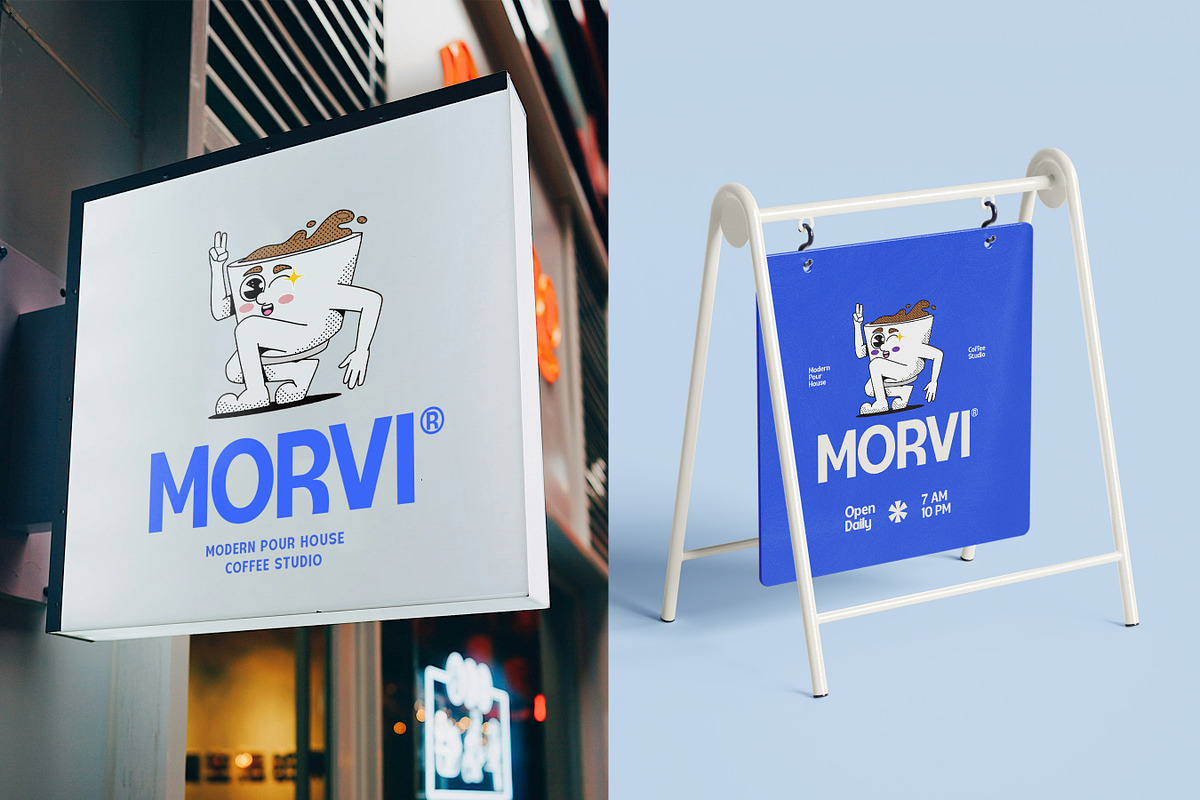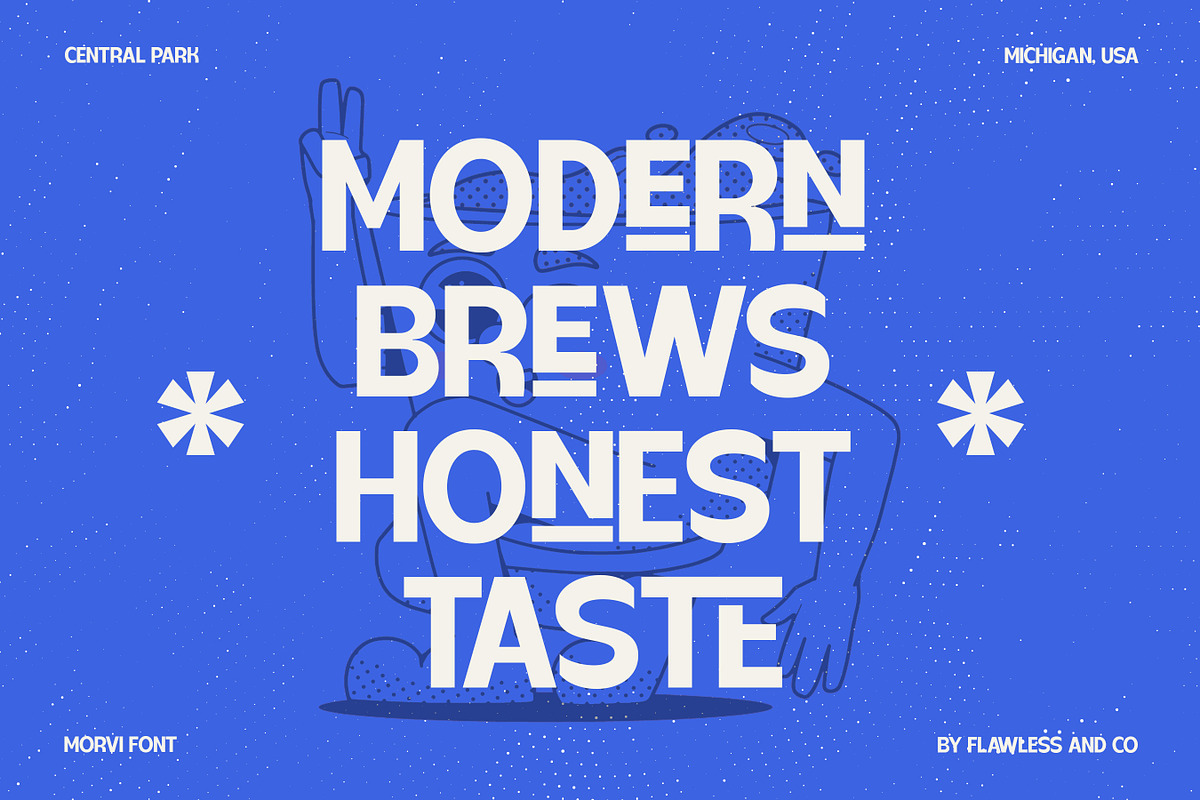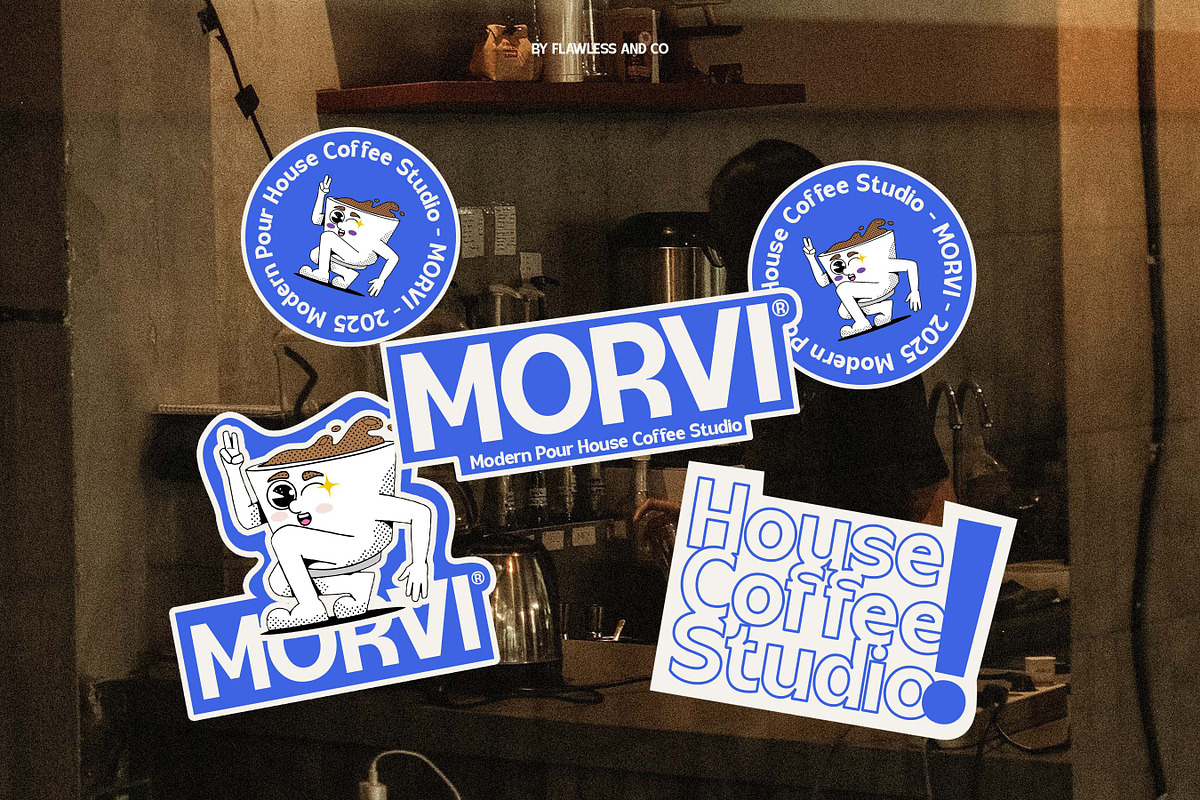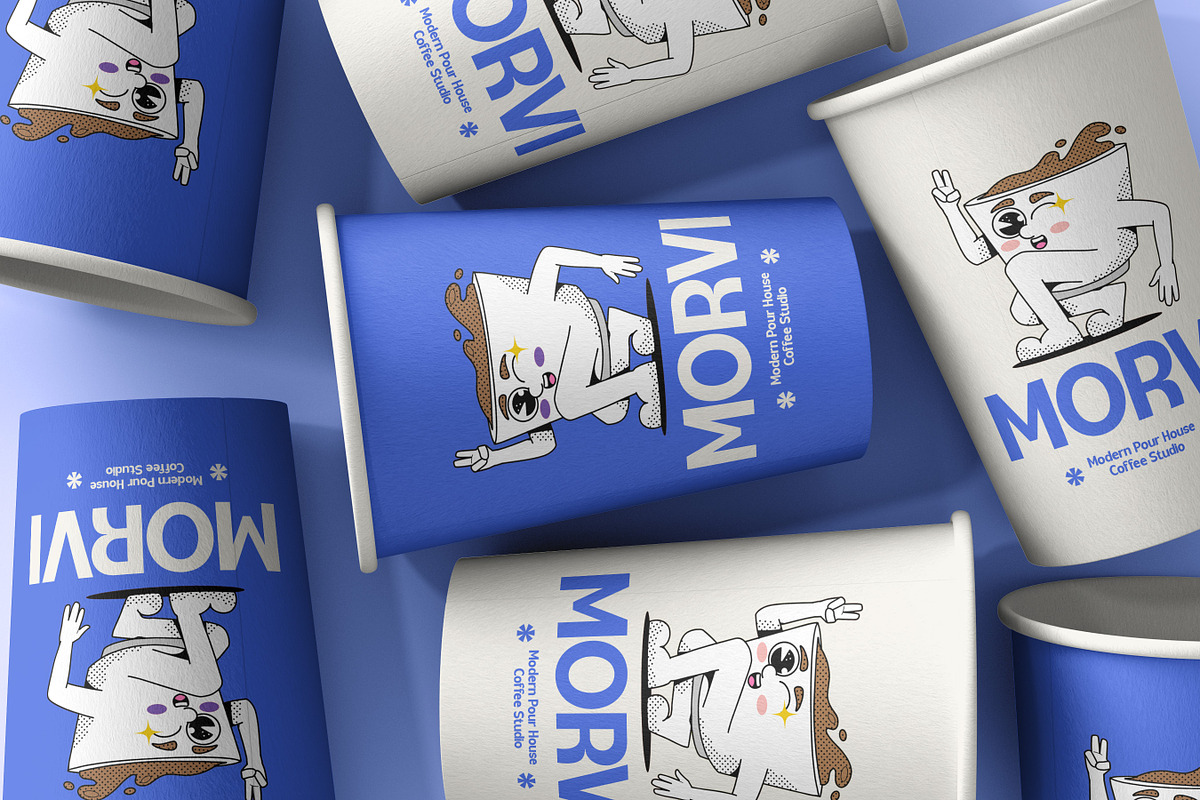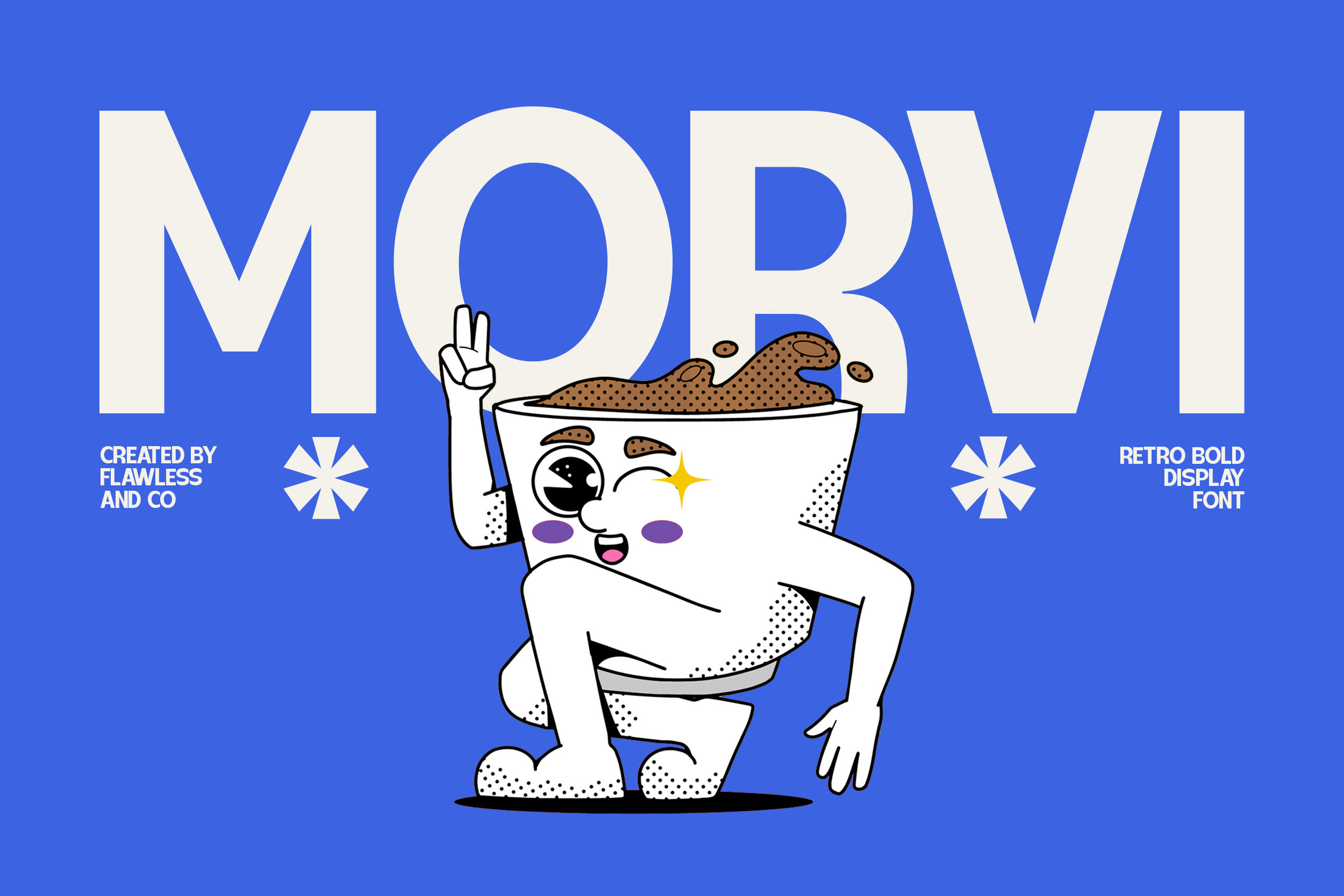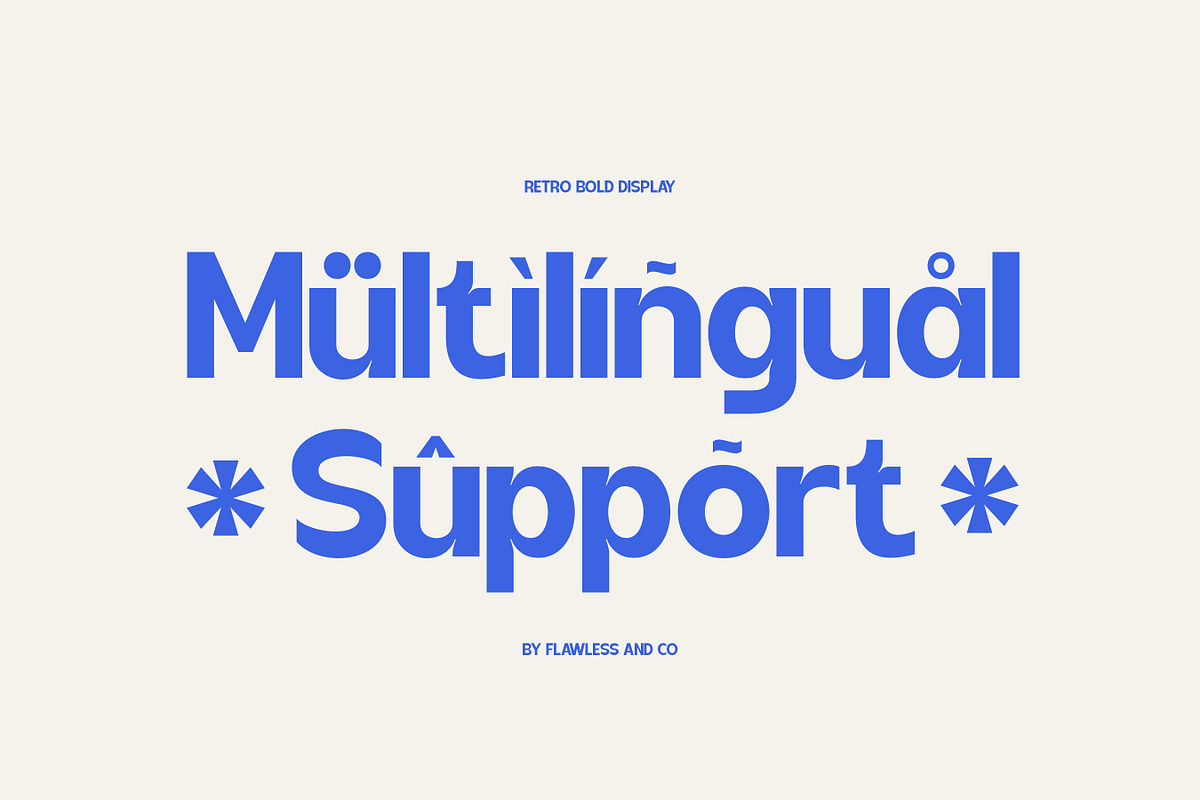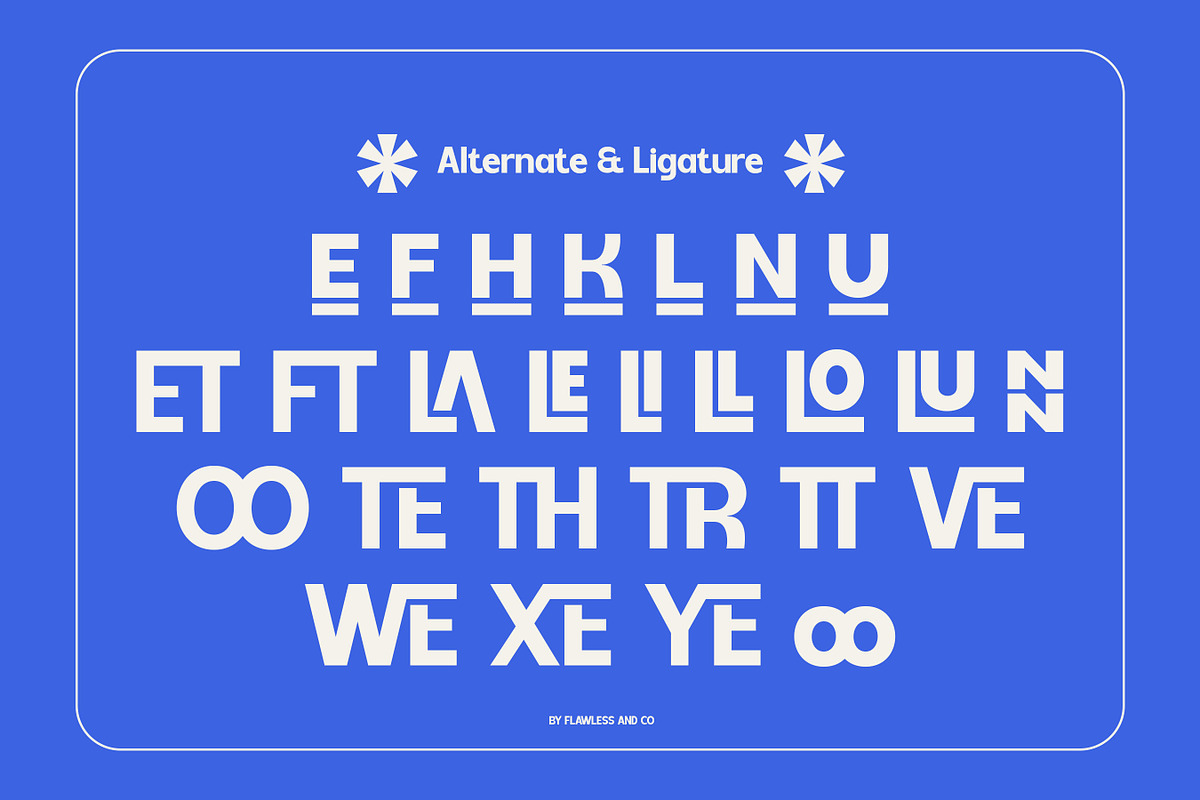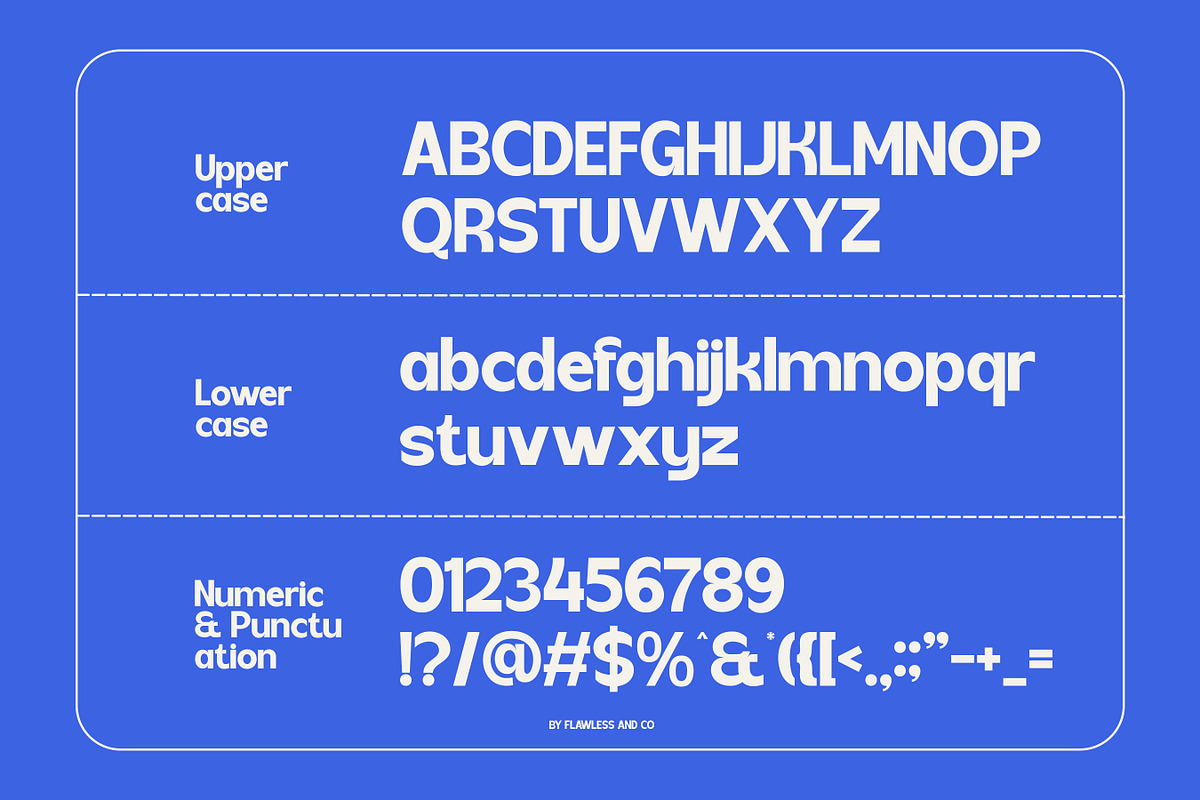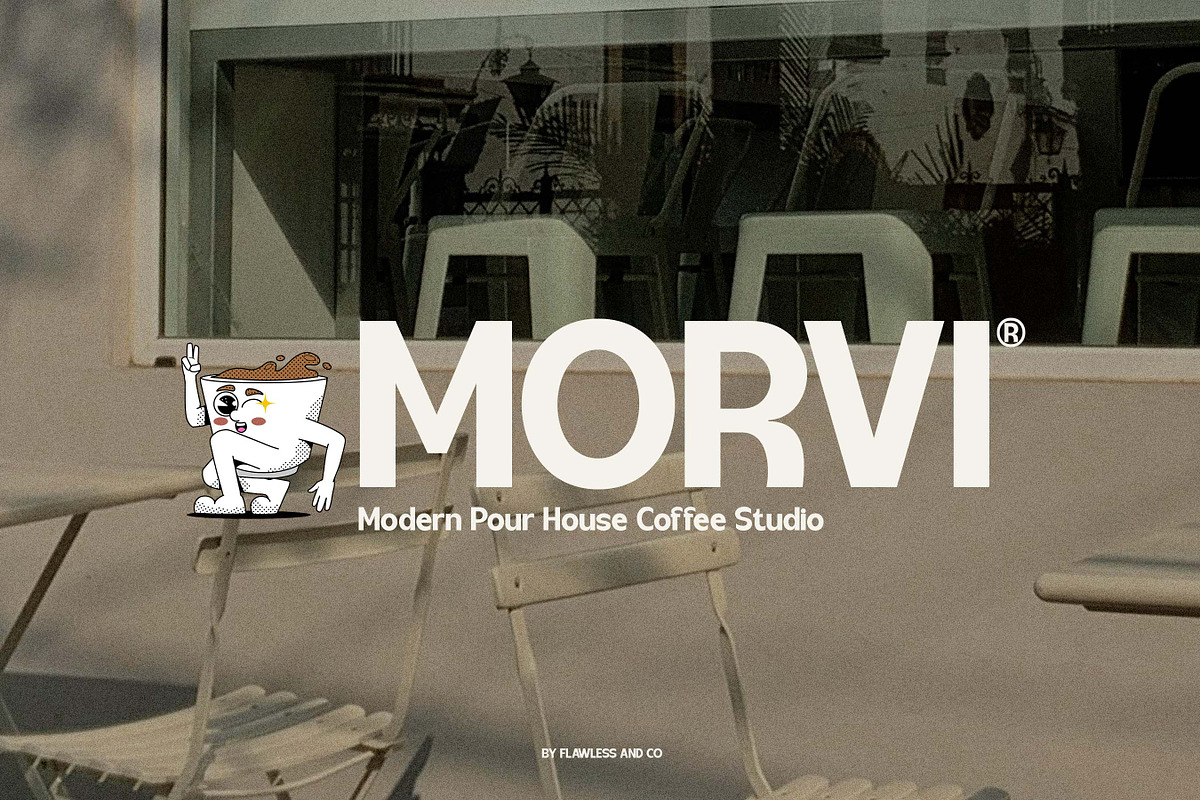
Morvi - Retro Bold Display Font
Morvi is a retro bold display font that brings playful nostalgia and confident energy into your design. With its thick, rounded shapes and vintage-inspired look, Morvi captures the fun, quirky charm of retro typography — perfect for projects that want to stand out with personality and boldness. Each letter is crafted with smooth curves and balanced proportions, making it ideal for eye-catching titles, branding, and packaging. Whether you’re designing a logo, poster, or social media headline, Morvi delivers a cheerful retro vibe that instantly attracts attention.
Who Should Use Morvi?
Morvi is perfect for creators who love bold and expressive typography with a nostalgic touch. It’s designed for:
- Brand designers who want a retro yet modern edge in their logo concepts.
- Creative agencies seeking standout display fonts for visual identity projects.
- Packaging designers aiming to create fun and memorable product designs.
- Poster and merchandise creators who need a bold, eye-catching headline font.
- Social media designers looking to add personality and playfulness to visuals.
A Must-Have Font for "Brand and Logo" Creators and Designers
Morvi is a must-have typeface for designers who want their branding and logo projects to radiate boldness and retro charm. Its confident curves and nostalgic style make it a perfect choice for creative professionals looking to build a memorable visual identity. Whether you’re crafting playful product packaging, a standout wordmark, or a vibrant poster headline, Morvi brings a lively, vintage-inspired energy that helps your brand feel fun, unique, and instantly recognizable.
Why Choose Morvi for "Brand and Logo" Projects?
Choosing Morvi means choosing impact, style, and personality. This retro bold display font blends nostalgic charm with modern versatility — making every logo or headline pop with confidence. Its thick, playful letterforms are crafted to grab attention while maintaining excellent readability across digital and print designs. With its retro-inspired curves and bold proportions, Morvi brings a timeless yet trendy vibe — perfect for brands that want to feel fun, friendly, and unforgettable. Whether you’re designing for coffee shops, fashion labels, creative studios, or lifestyle products, Morvi gives your project a distinctive visual punch that stands out from the crowd.
Suitable For:
- Logo and branding design that needs a bold, retro-inspired personality.
- Packaging and label design that captures vintage charm with a modern edge.
- Poster and headline typography to make your message stand out with impact.
- Merchandise and apparel design that brings nostalgic yet trendy vibes.
- Social media graphics and marketing visuals that draw attention instantly.
- Cafe, restaurant, or product branding with a classic yet energetic look.
- Editorial titles and creative layouts that showcase strong visual character.
- Bold display typography for web and print to enhance readability and style.